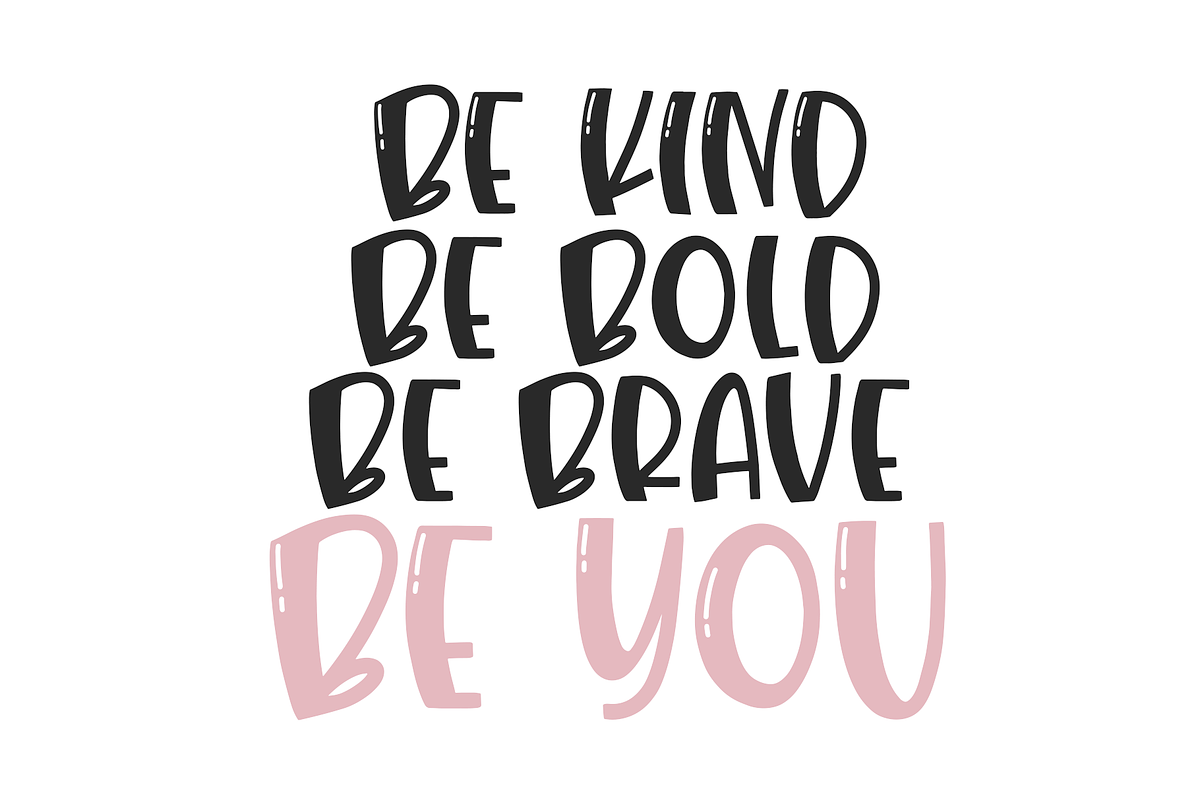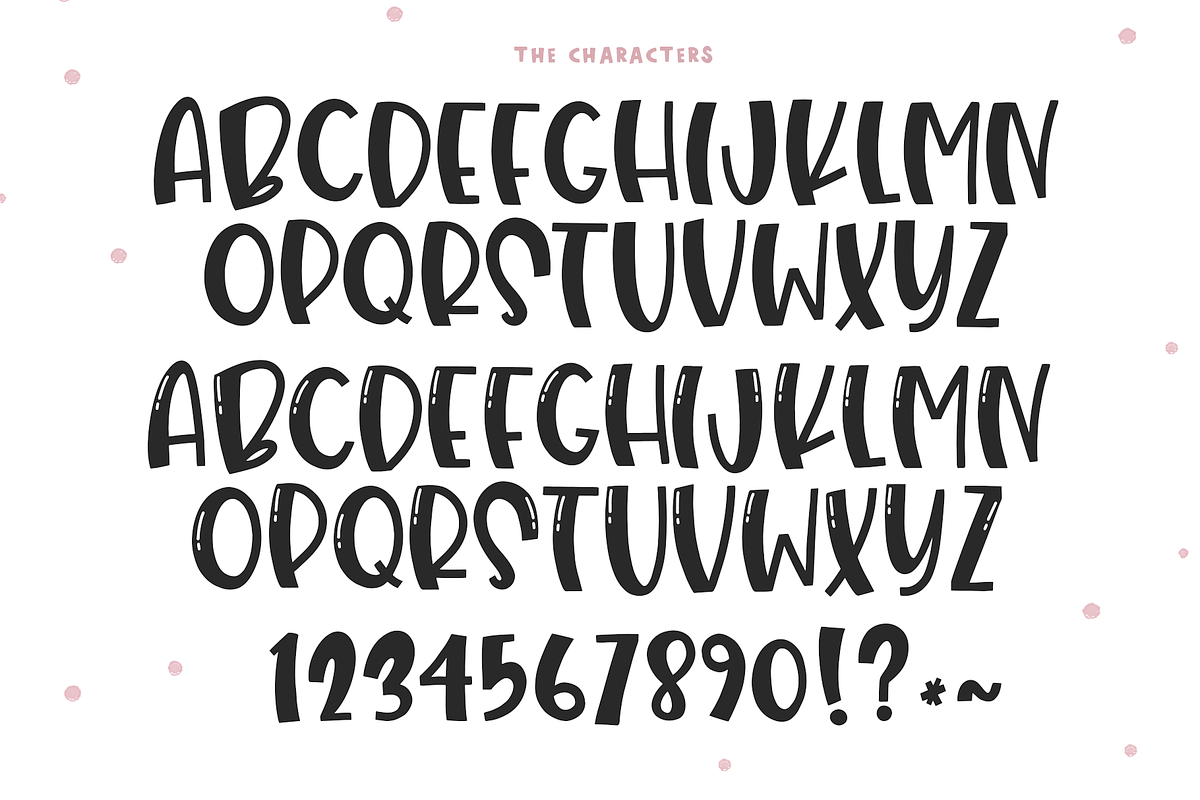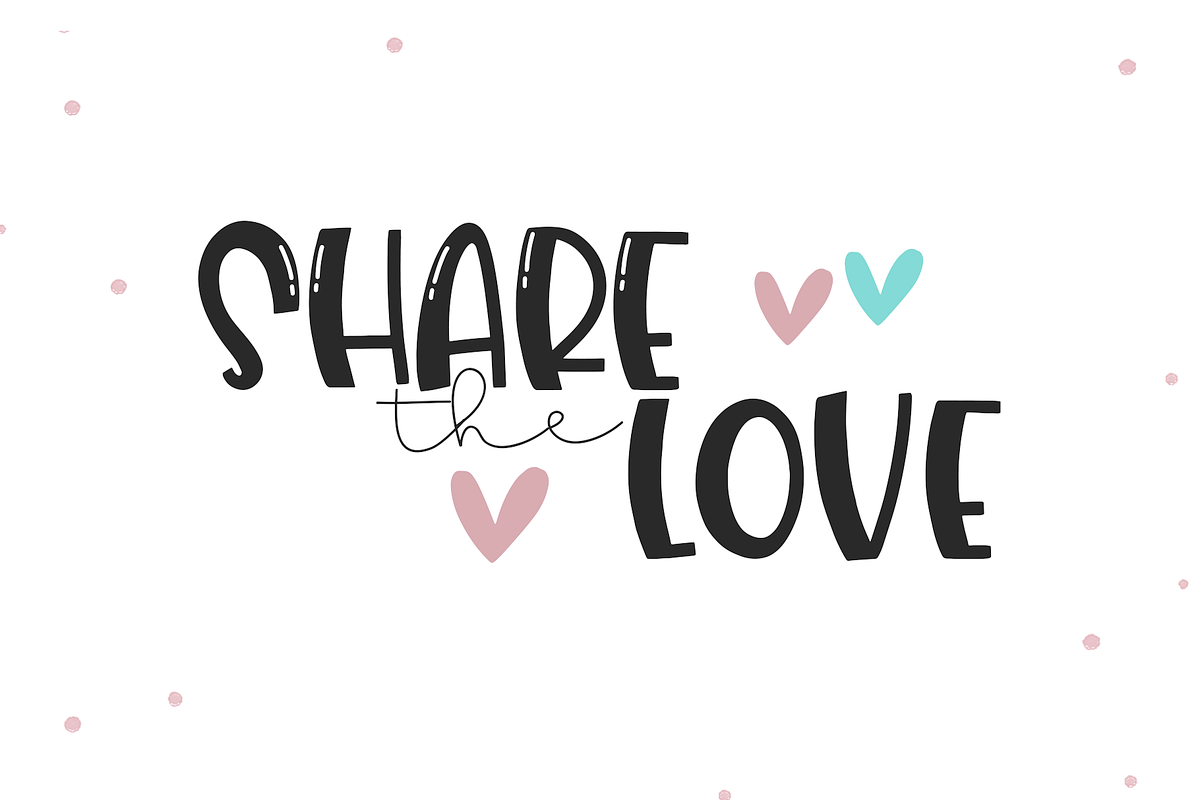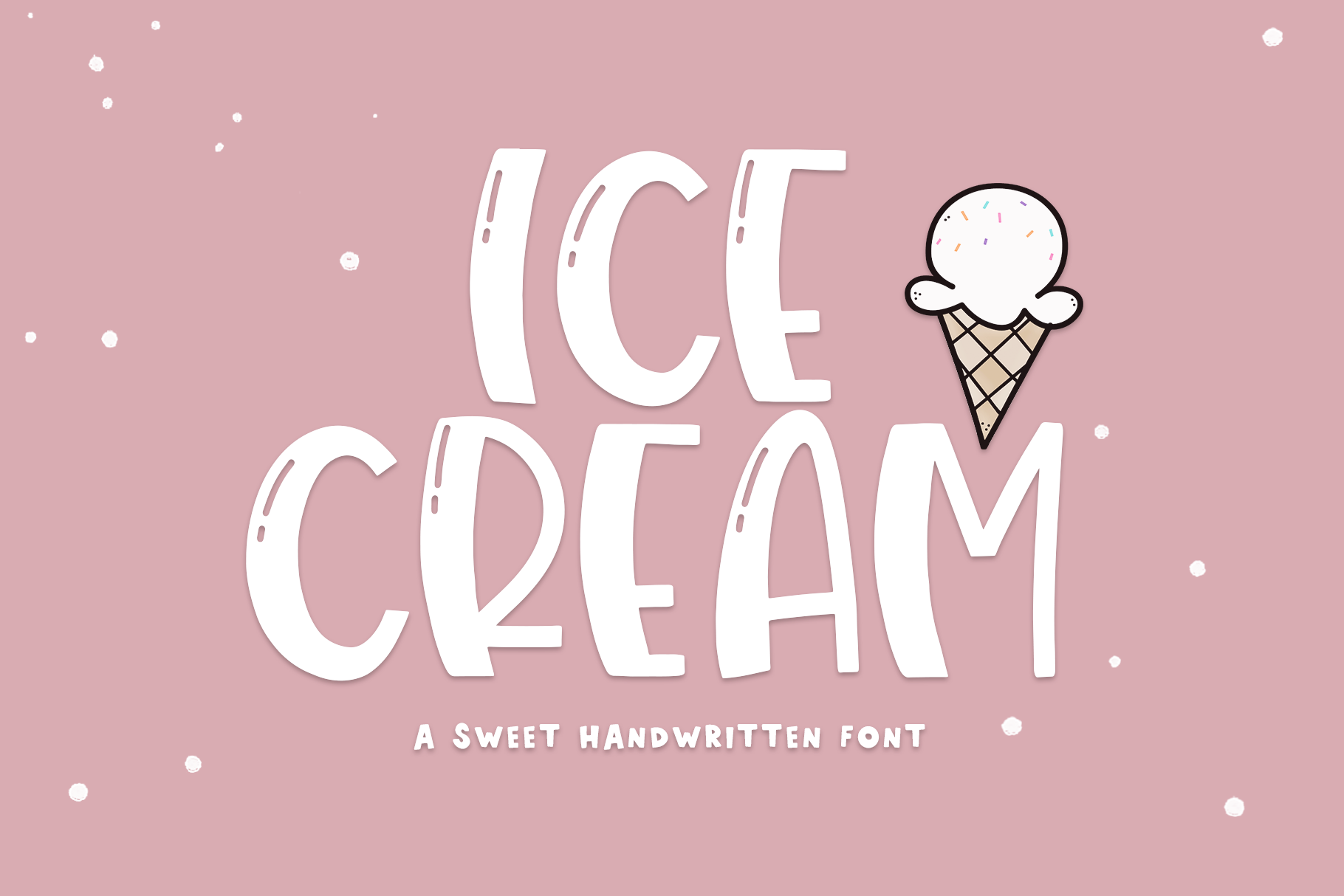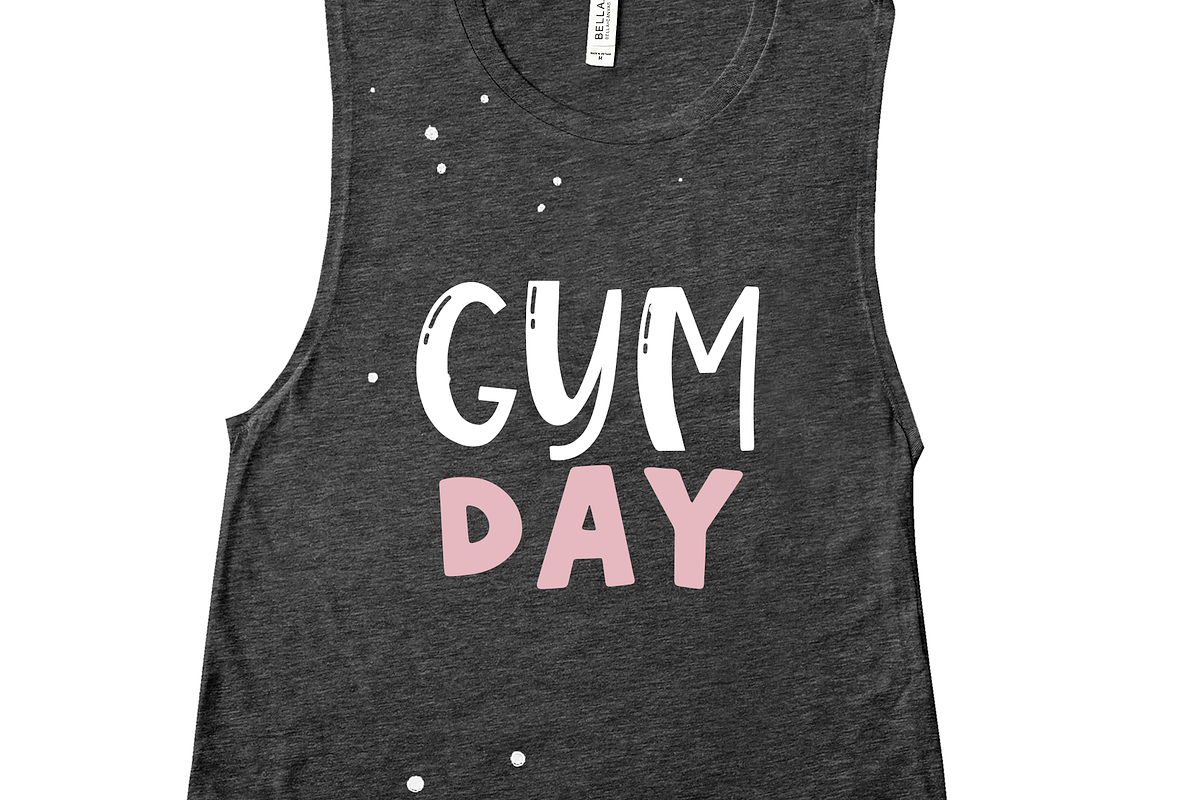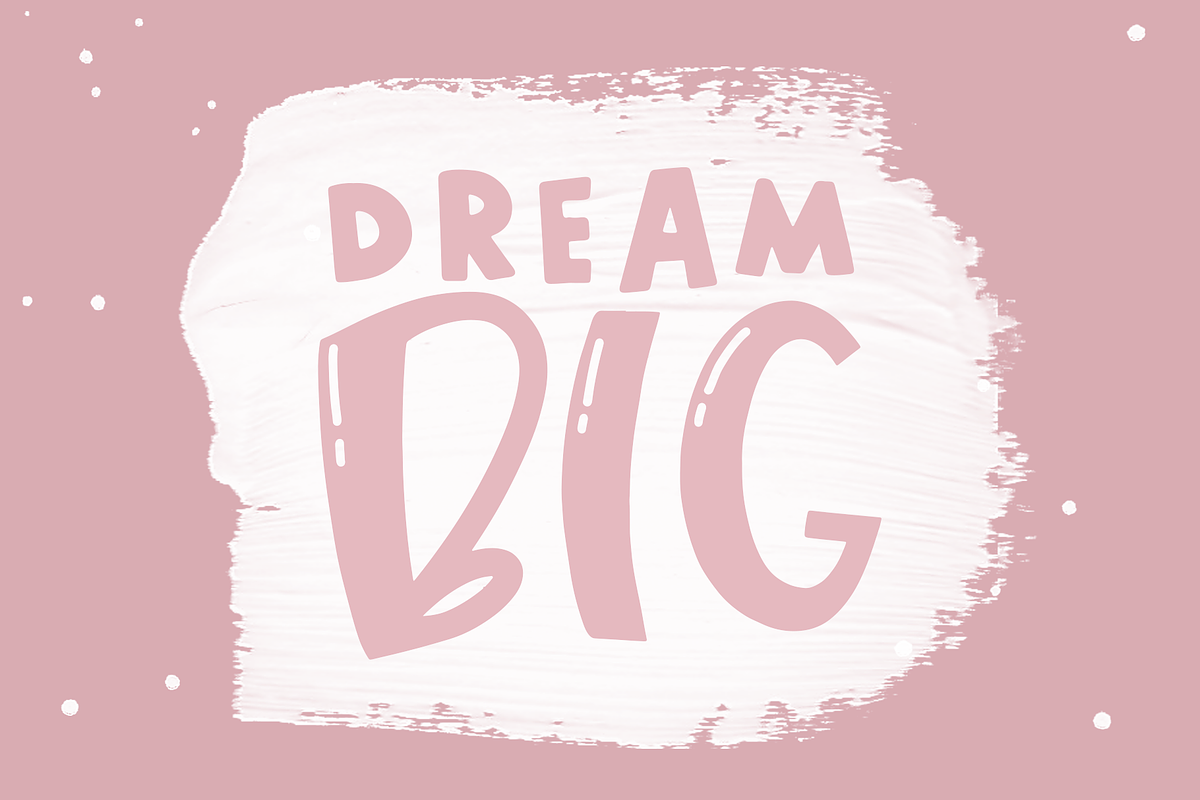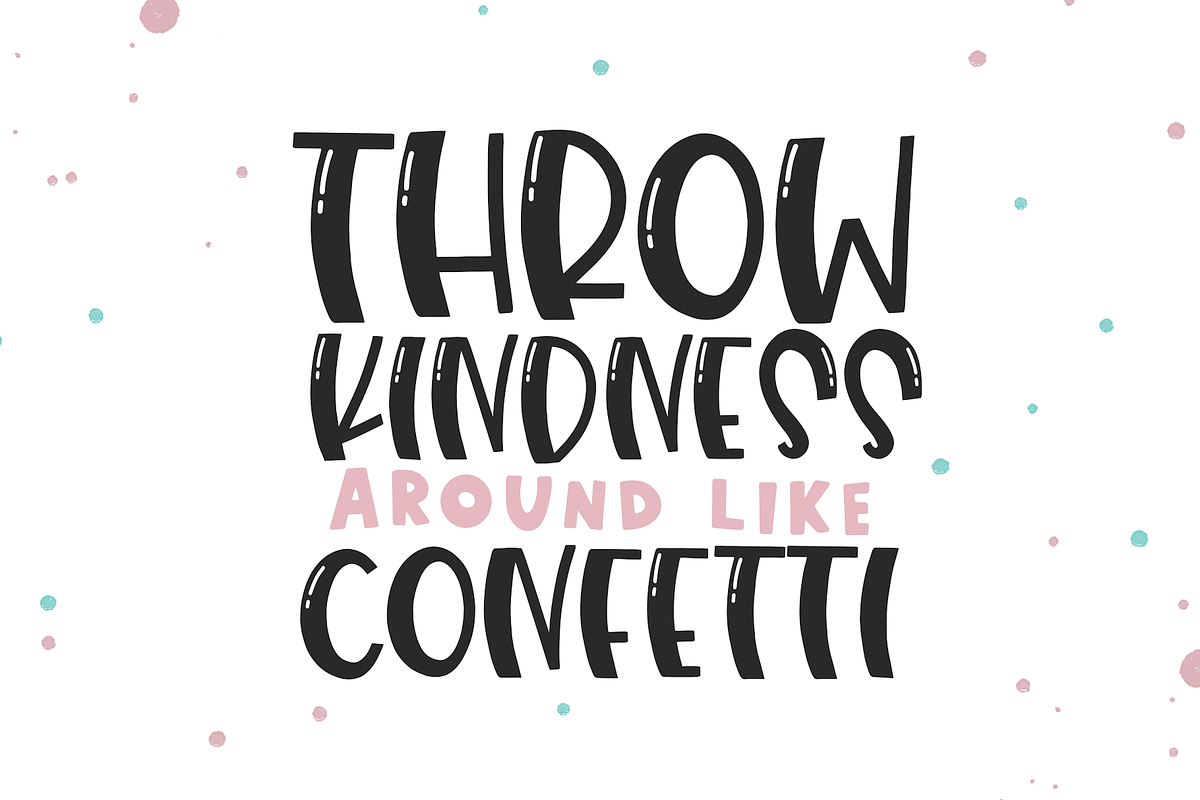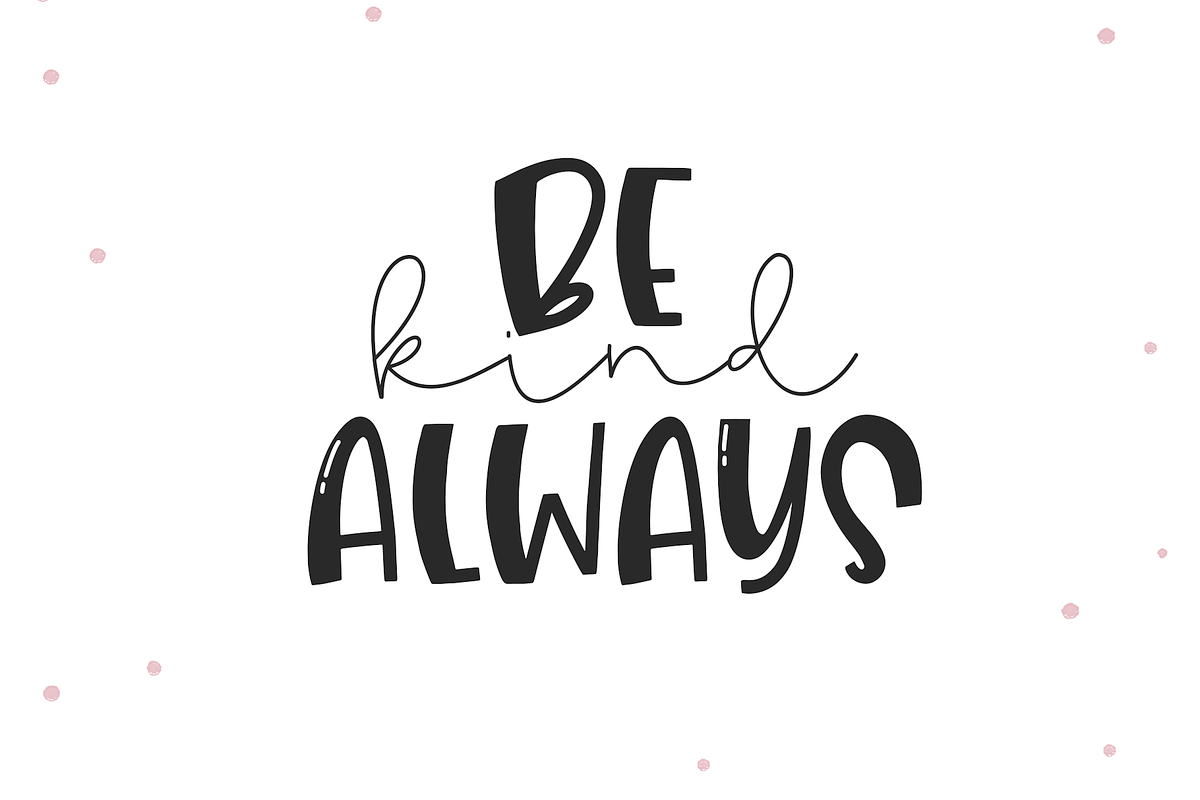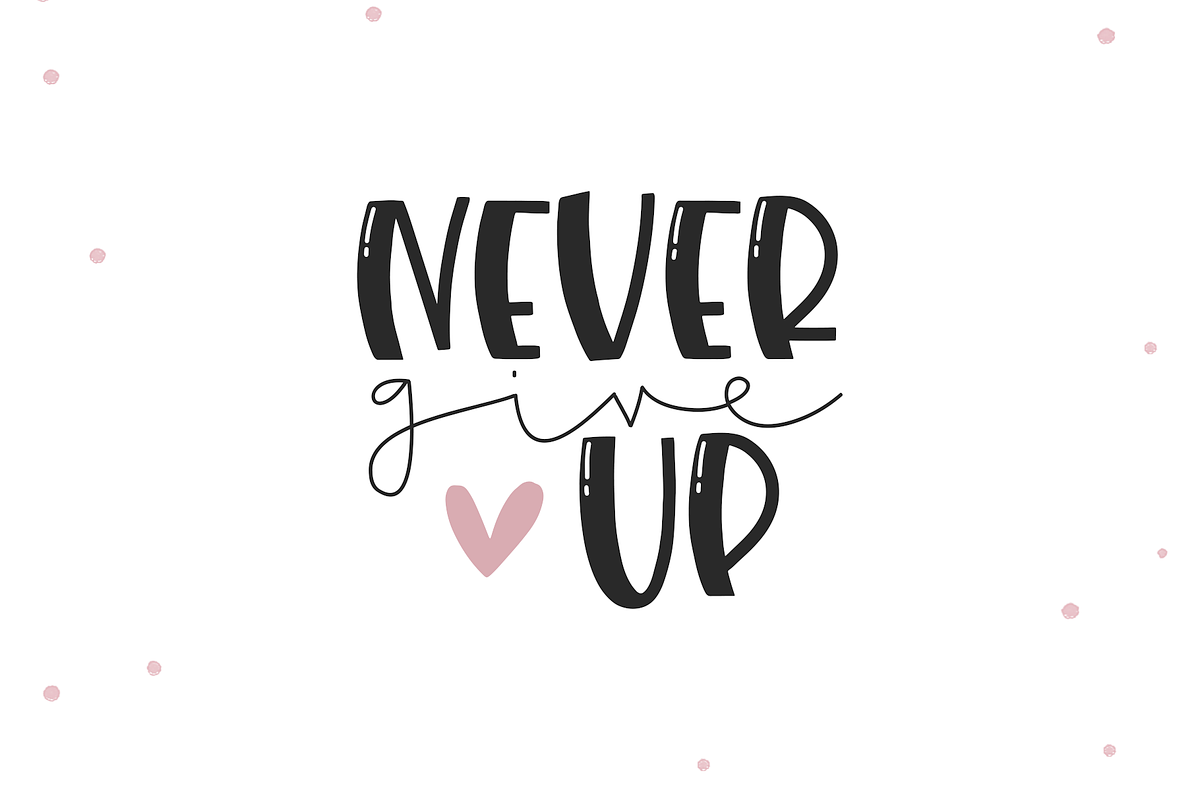
Ice Cream - A Fun Handwritten Font
Ice Cream is a handwritten font with big, quirky letters. It is an ALL CAPS font.
This font is perfect for quotes, headings, blogs, logos, invitations and more!
This font does include accent characters.